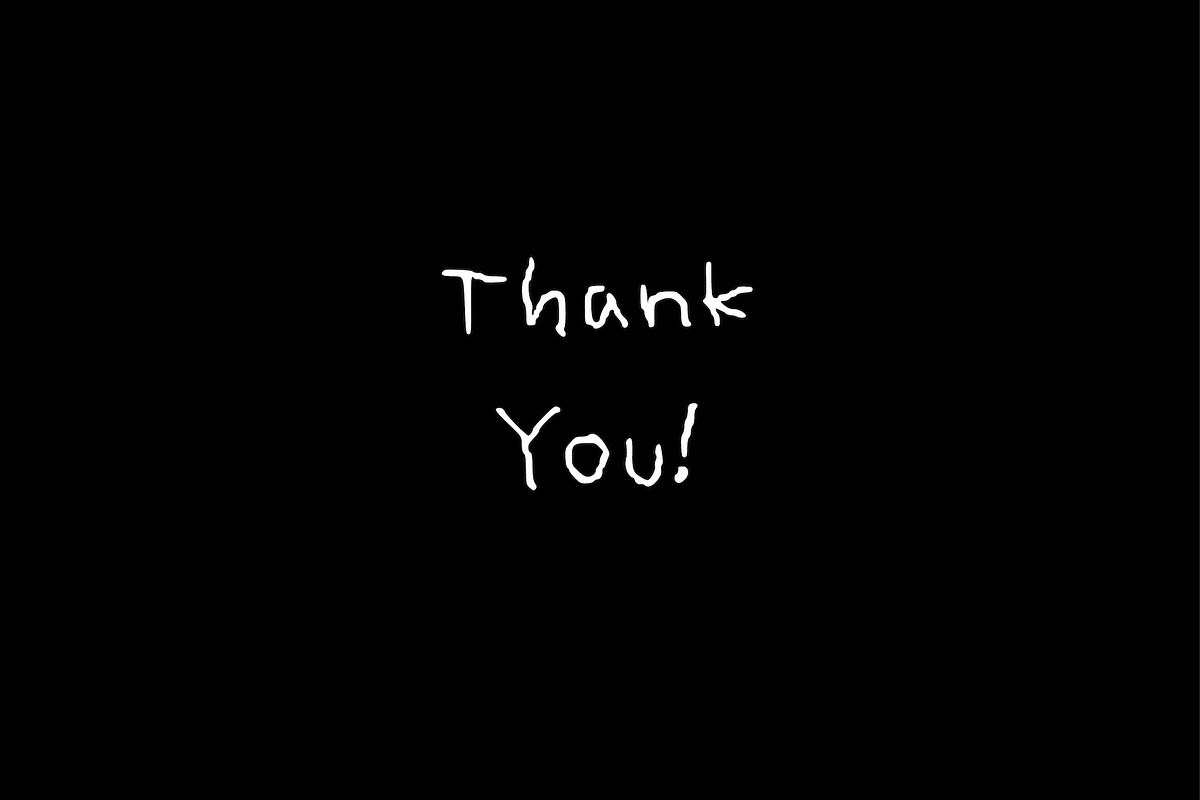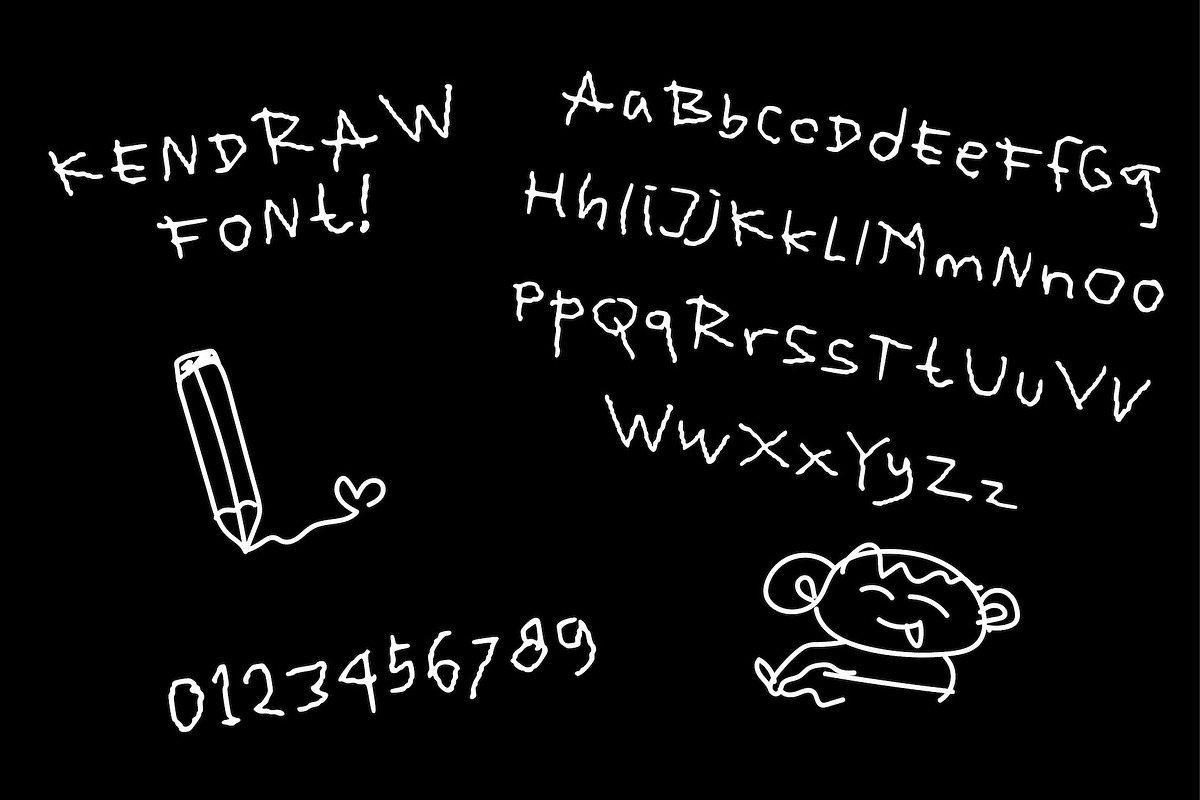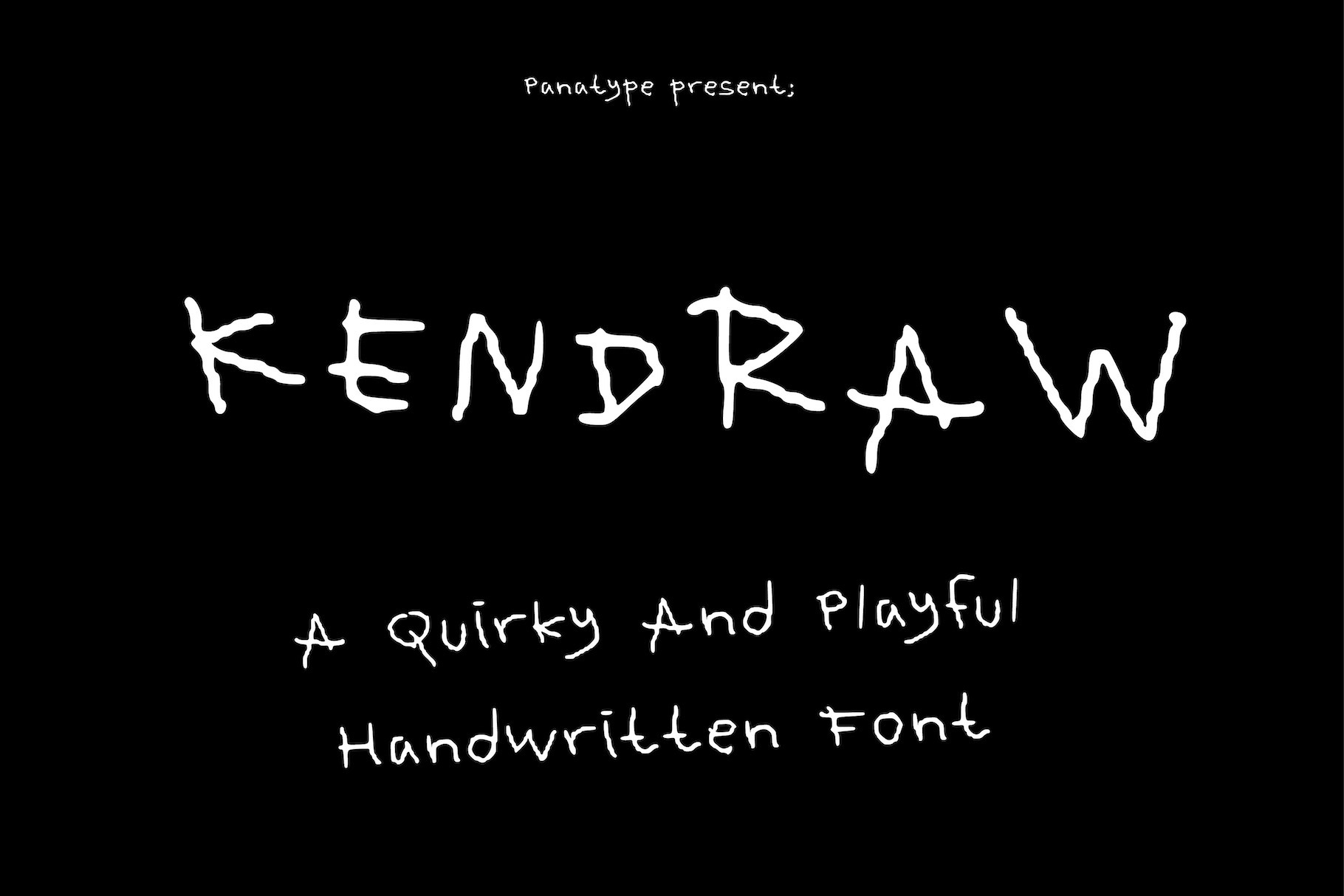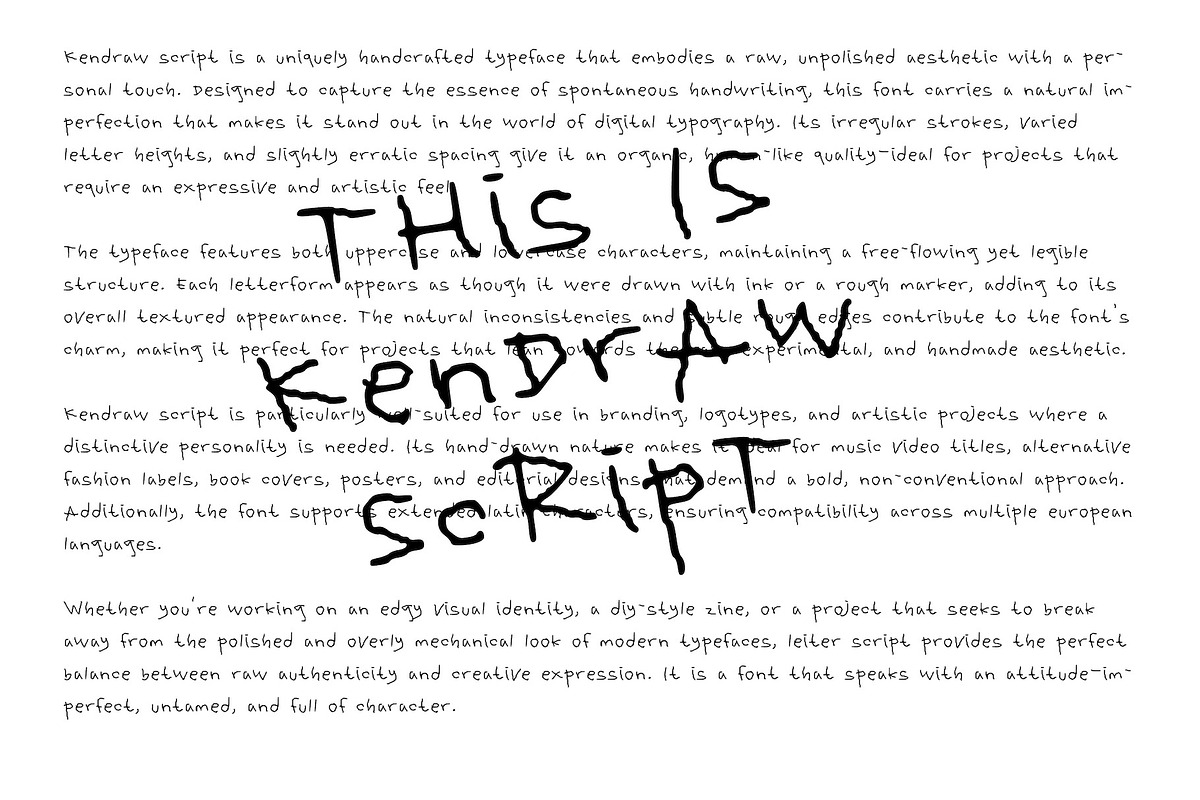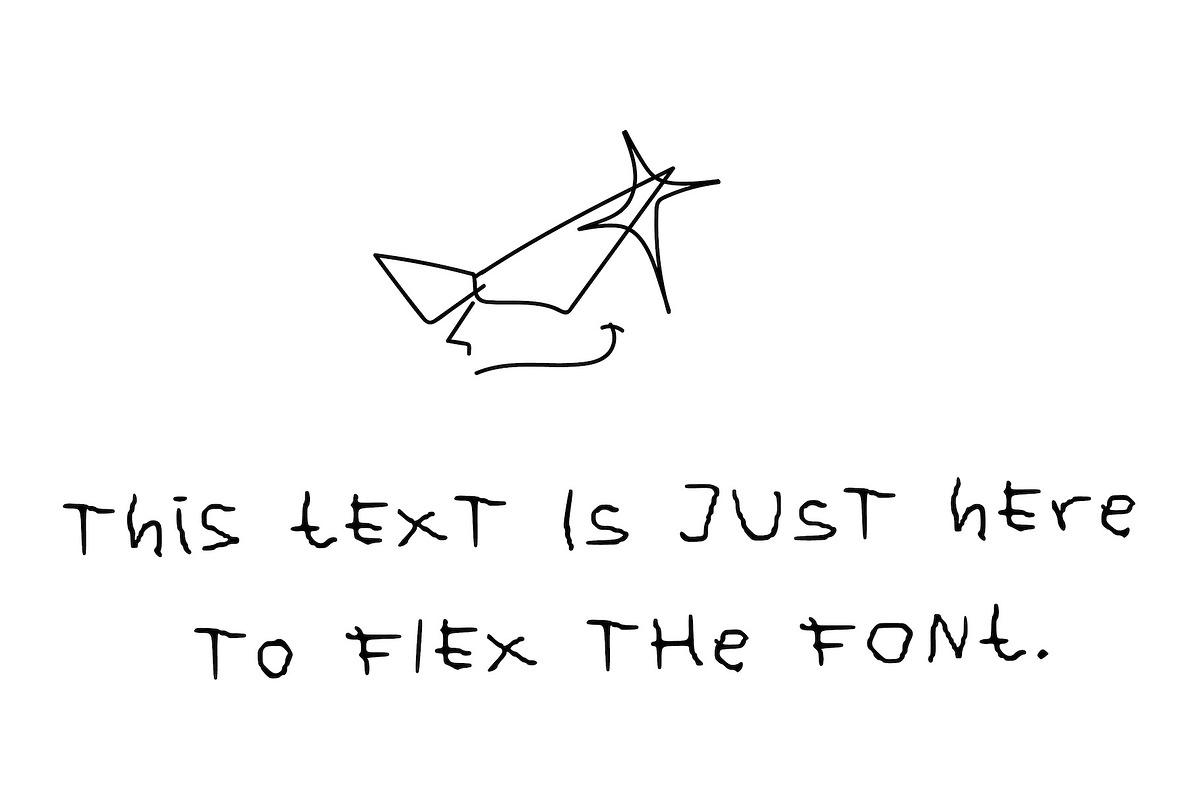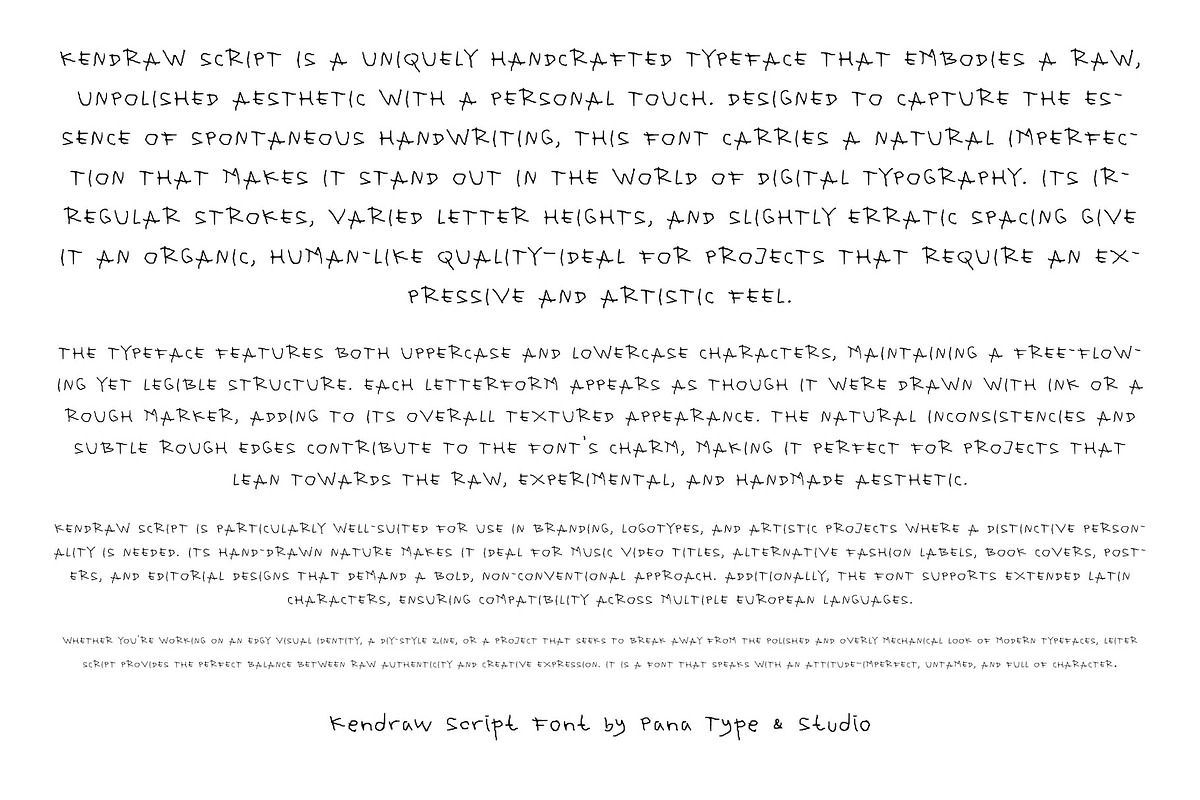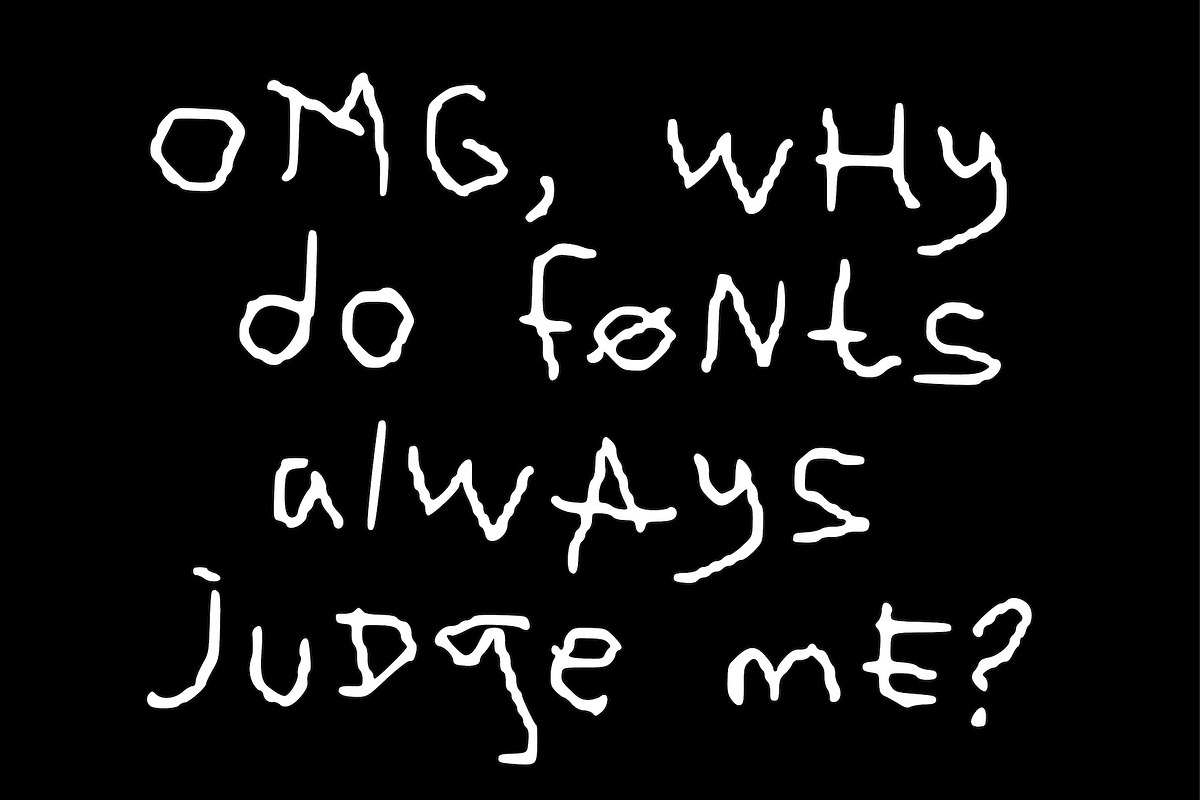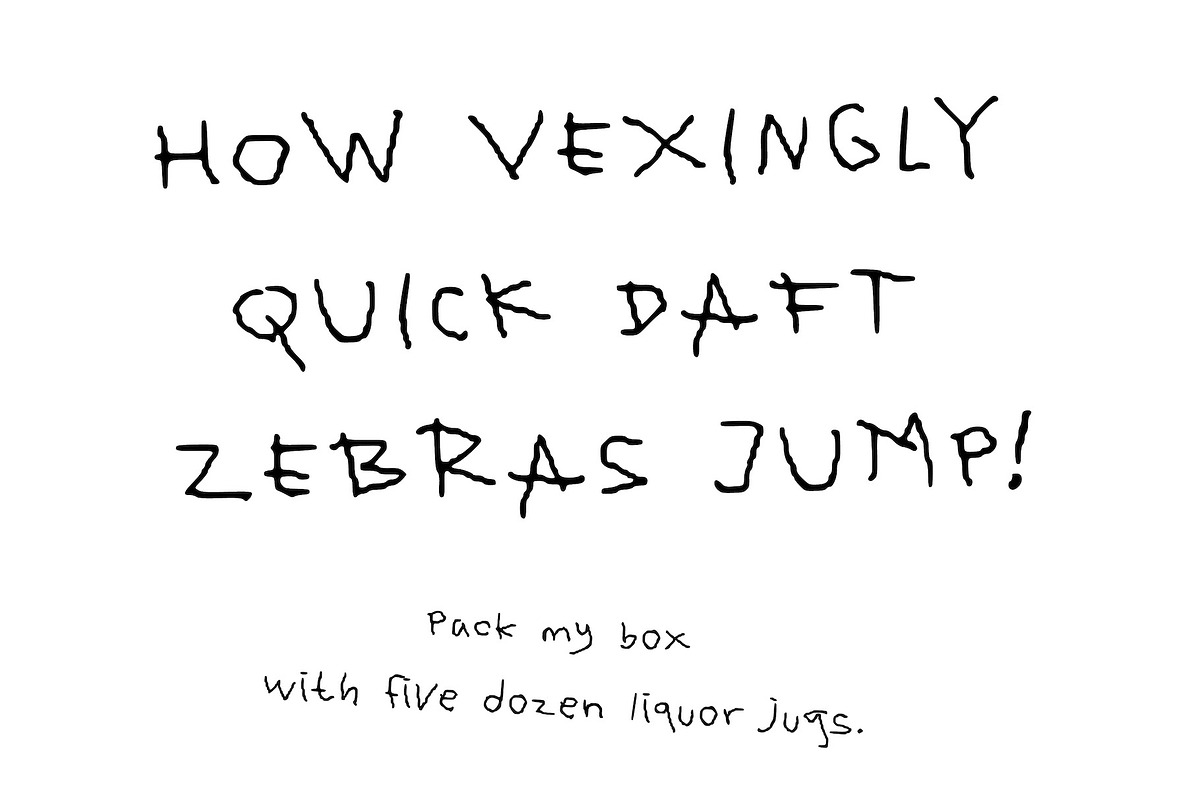
Kendraw - Handwritten Font
Introducing Kendraw Font, a raw and expressive handwritten typeface designed to bring an organic, imperfect, and artistic touch to your projects. With its rough strokes and irregular letterforms, this font captures the beauty of spontaneous handwriting, making it the perfect choice for creative branding, hand-drawn logos, album covers, poster designs, and experimental typography.
Why Choose Kendraw Font?
- Authentic Handmade Look – Each letter is carefully crafted to retain a natural, sketch-like quality.
- Uppercase & Lowercase – Featuring both uppercase and lowercase characters with a natural, flowing rhythm.
- Multilingual Support – Includes an extended Latin character set, covering Western, Central, and Southeastern European languages.
- Versatile & Unique – Ideal for music video titles, book covers, editorial designs, apparel branding, and artistic projects.
- 🎨 Artistic & Experimental Typography
- 🎬 Music Video & Film Titles
- 🖋️ Personal Branding & Logo Design
- 📖 Book Covers & Editorial Projects
- 👕 Apparel & Merchandise
Bring your creative ideas to life with Kendraw Font – a typeface that embraces imperfection and authenticity! 🌟